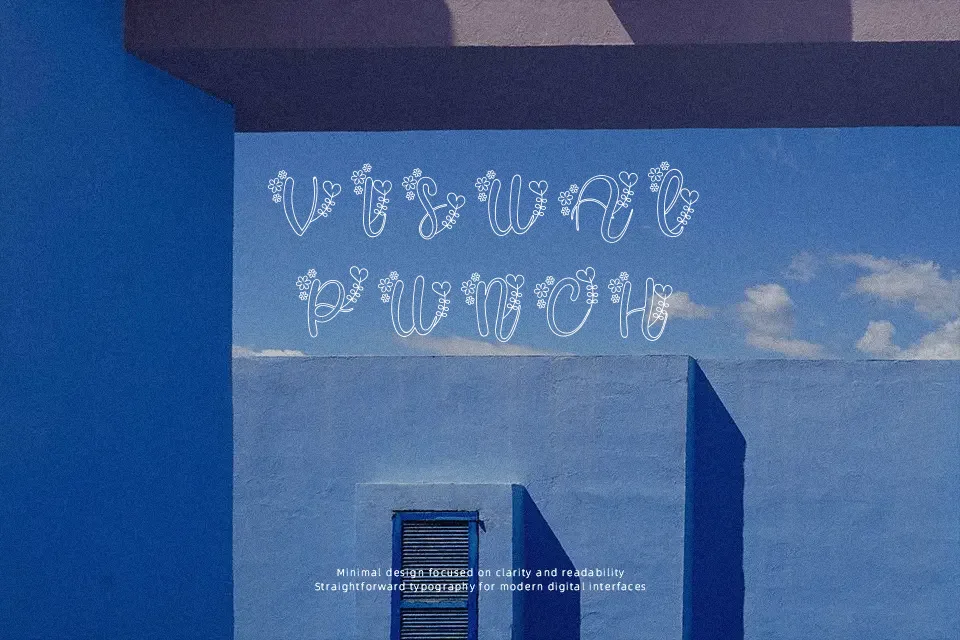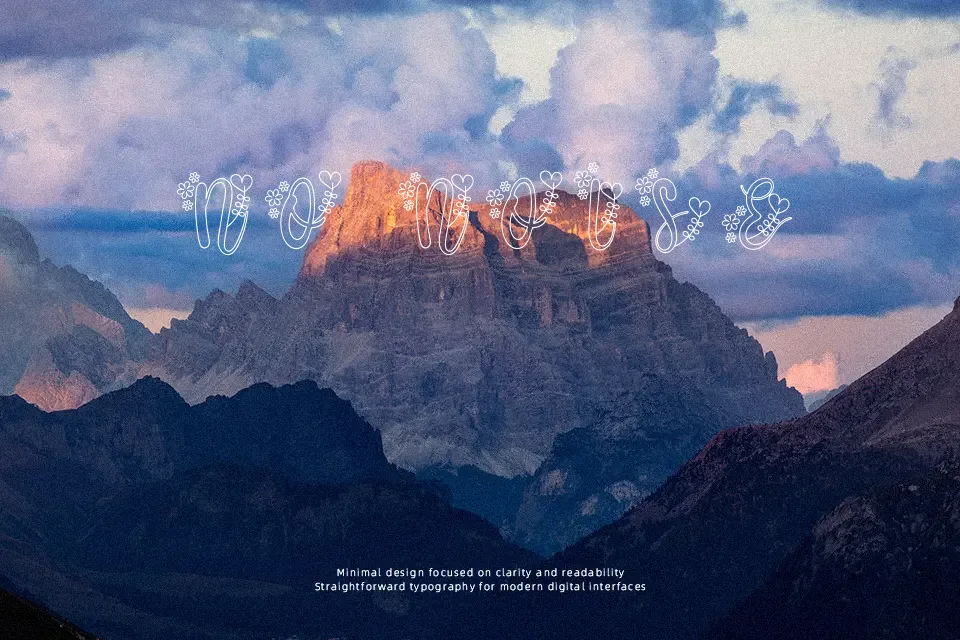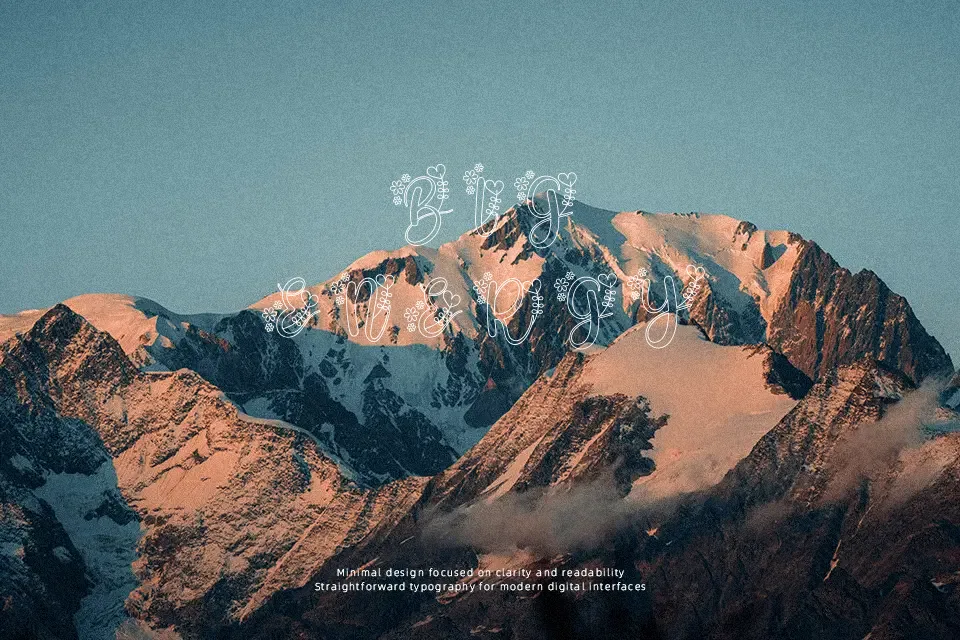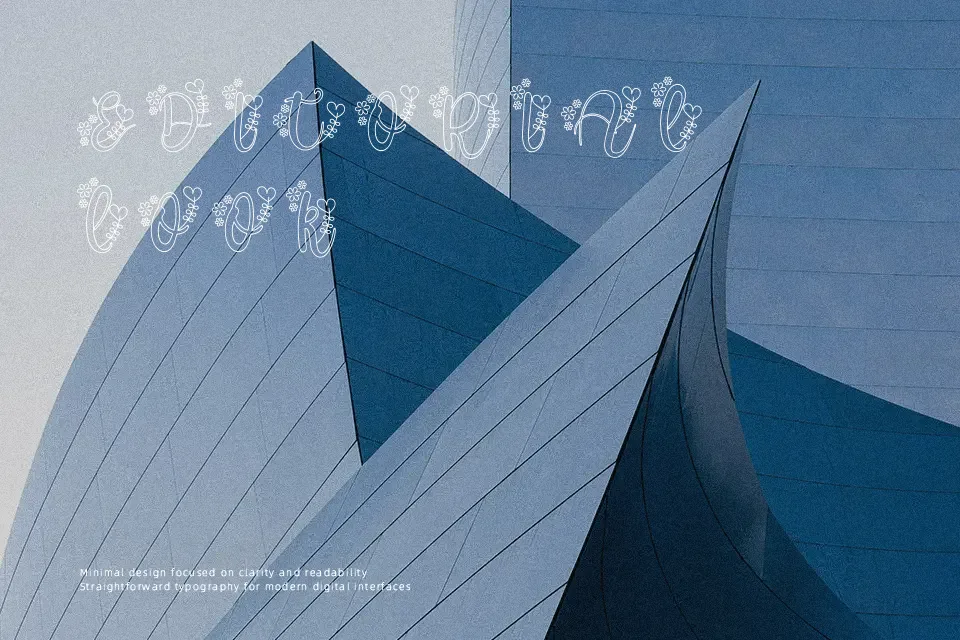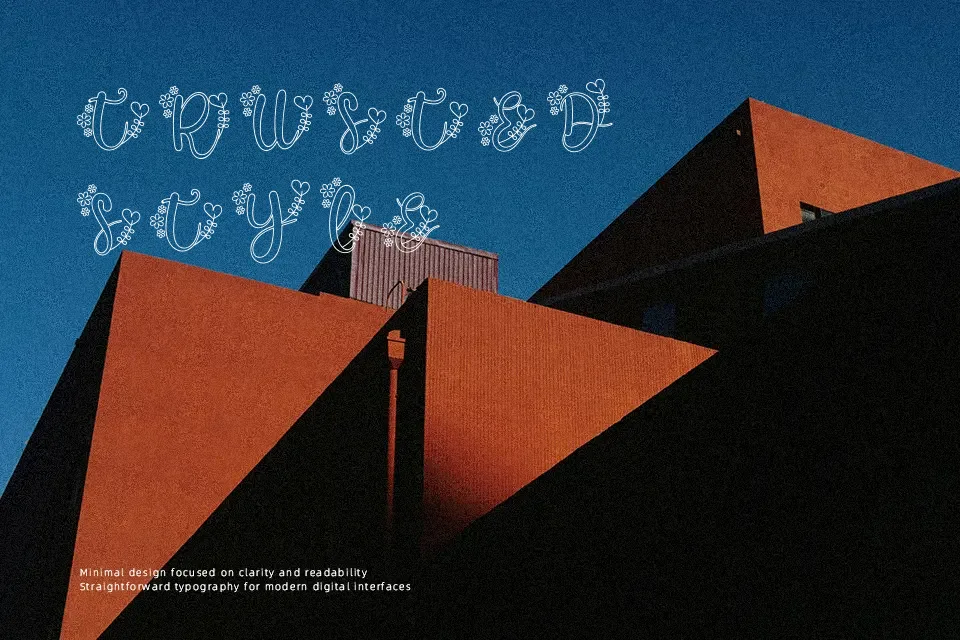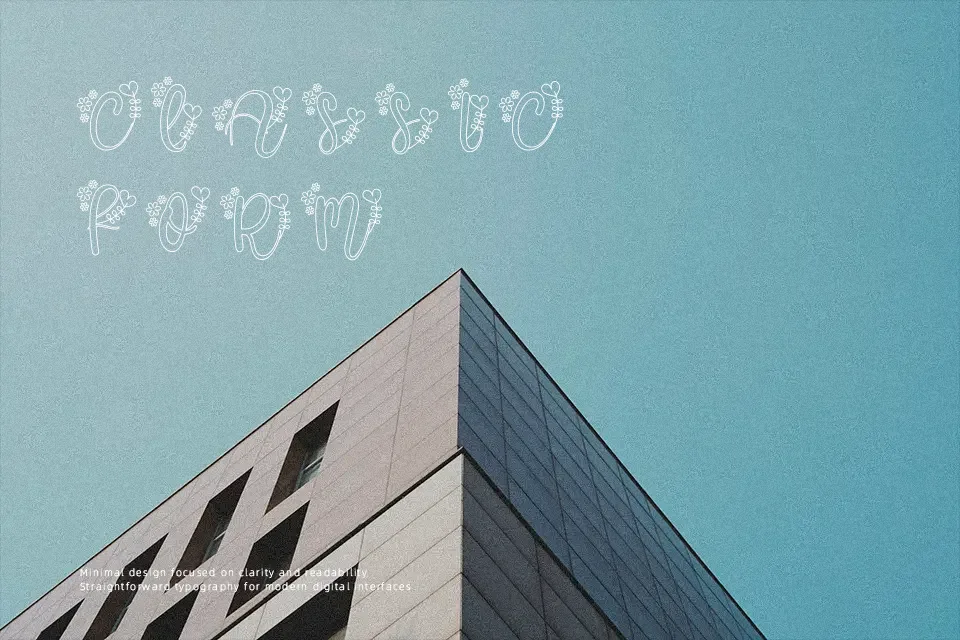
Alissa Monogram Font
Designed by Mr.Soon Design
Alissa Monogram Font focuses on ornamental letterforms with looping strokes, light contrast, and generous negative space that form compact circular or oval monograms. Its decorative, initials-based structure feels feminine and romantic rather than formal, making it visually appealing on small clusters of letters like couples’ initials, short brand marks, or social media avatars. The font works well when you need a delicate focal point, such as on wedding stationery, beauty packaging, or Valentine’s promos, but it becomes hard to read in long words or body copy. Use it as a special accent or logo-style element, not as a general-purpose text face.
wedding invitation monograms
valentines day cards and tags
beauty or fashion brand initials
social media profile marks
formal corporate reports
small UI labels or menus
dense multilingual layouts
Perfect for invitation, logo, and packaging, with a creative and decorative style.